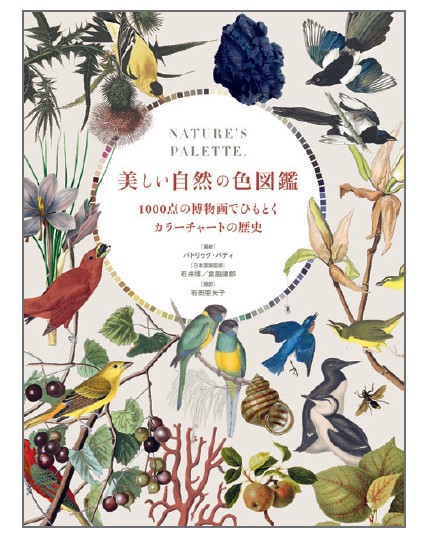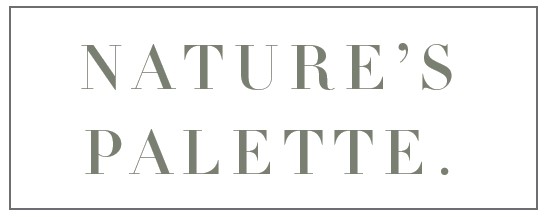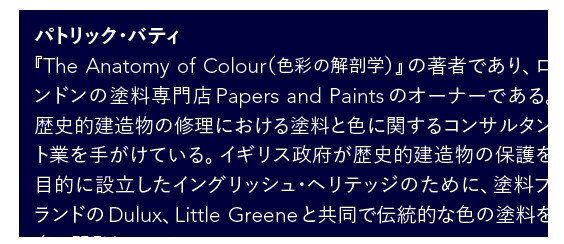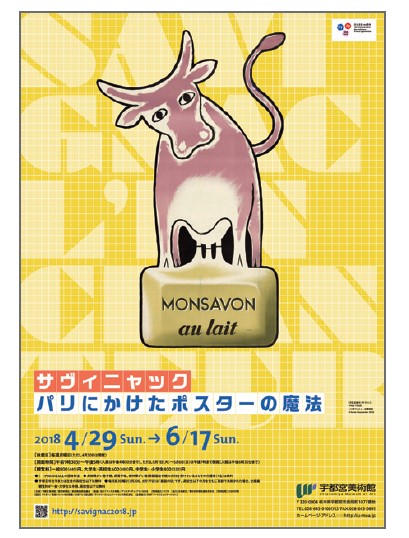
With the end of Support for Type 1 fonts, many design and DTP professionals are asking, "What should we do about the European environment?"
What do you need in order to continue working?
Let's think again about the points of the Latin font service that you should choose in the future.
"Monotype LETS" introduced this time is an annual flat-rate font service provided by Fontworks, which is familiar with Japanese fonts.
Monotype is the world's largest font maker with a history of 130 years and has major, high-quality European fonts such as Helvetica, Frutiger, and Optima. In addition to Western fonts, there are also Japanese fonts and Language fonts such as "Tazugane Kaku Gothic". "Monotype LETS" allows you to freely use more than 9000 typefaces from the Monotype font library with an annual license.
Monotype LETS user interview
You can now use fonts with a wide range of designs freely and with peace of mind.
Worked on many translations of overseas printed materials into Japanese and English translations of Japanese books.
Mr. Okada from the Lamplighters label.
“Of course, I always make synthetic fonts for English work, even for Japanese-based designs, so the rate of using European fonts in my work is 100%.
I often use basic typefaces such as Garamond, Avenir, and Univers, and Didot for elegant designs. In addition, there are also fonts that are selected spot-on to match the image of the product.”
They used to buy fonts as needed, but they have been using Monotype LETS for several years.
“If you buy each typeface, the cost is huge. I wanted to use various fonts, so I chose a subscription.
For me, Monotype is a reliable and reliable brand in terms of design and quality. The fact that we have a wide range of designs, from basic to unique, was also a decisive factor.”
For the quality of European fonts, in addition to the beauty of the design, it is also important to have plenty of weights, Language support, and the number of characters such as symbols.
"Sometimes it's a problem if symbols such as accents and macrons don't appear. Also, if the weights aren't the same, you can't naturally combine them with Japanese fonts."
Mr. Okada says that after introducing Monotype LETS, he was able to choose from a large number of fonts that match his image.
“I still have the existing Type1 font data, but I would like to completely switch to Monotype in the future and clean up the European environment.”
A combination of Japanese and European languages that emphasizes the image of the original
This is a beautiful translated book with vivid illustrations of animals and plants. Designed not to spoil the image of the original
The title part of the printed cover has an elegant and classical impression of Didot, and the editorial introduction.
The chapter combines Avenir with Gothic Japanese text.
The title expresses a sense of humor and playfulness
The graphic for Savignac's poster exhibition uses the bold Braggadocio font on a bright yellow background. A historical typeface that adds a modern touch to a sans-serif, representing the worldview of Savignac, known for its simple and powerful forms and humorous expressions.